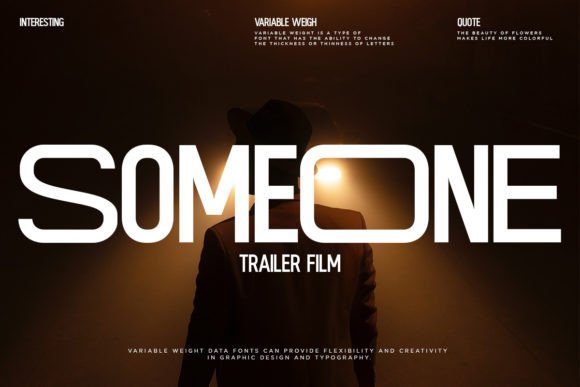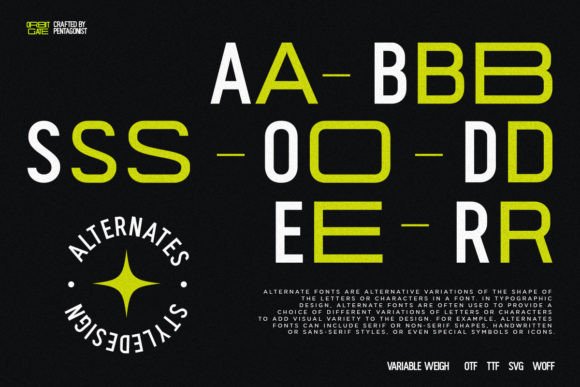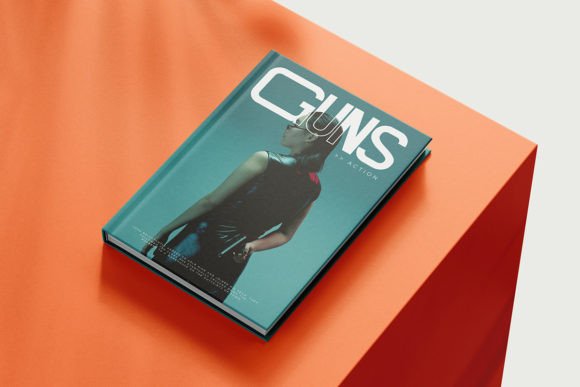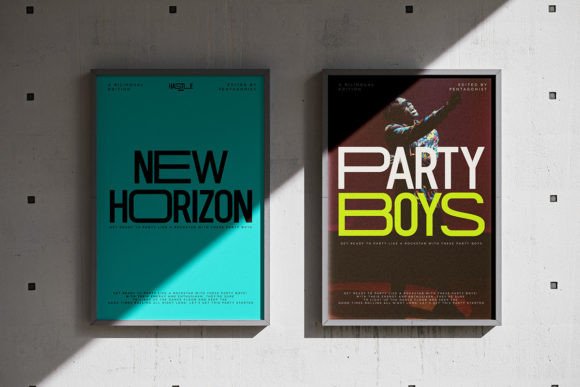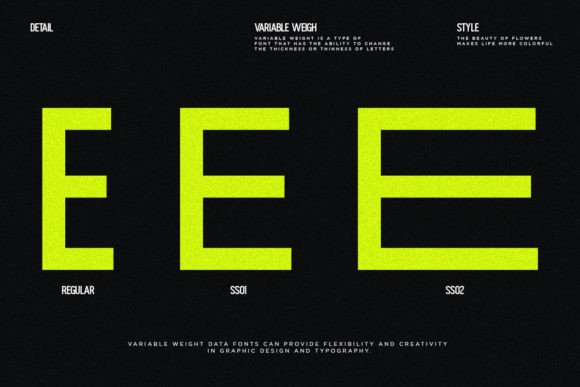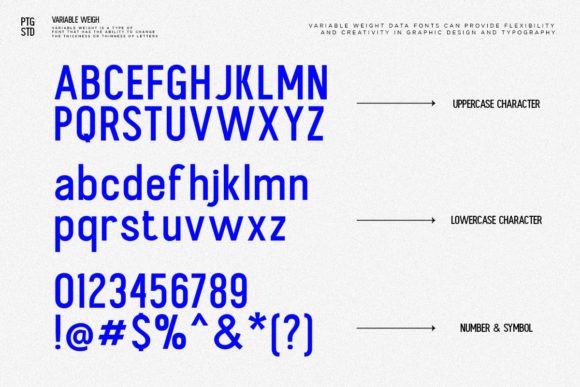
Introduction to Orbit Gate Font
As a designer, you’ve probably had that moment when you’re working on a creative project, and you just can’t seem to find the right font to bring your idea to life. The frustration is real, but what if I told you there’s a game-changing solution? Enter the Orbit Gate Font, a modern display sans serif typeface that’s about to revolutionize your design process.
Designed to be versatile and adaptable, the Orbit Gate Font is the perfect design resource for any branding purpose. With its variable style condensed and extended options, you can create a high-quality visual identity that’s sure to impress. And the best part? It’s PUA encoded, making it easy to access all the amazing glyphs and ligatures you need to take your design to the next level.
Whether you’re working on a free download project or a high-stakes client brief, the Orbit Gate Font is a valuable asset that’s sure to save you time and effort. With its transparent background and limitless customization options, you can trust that your design will shine with this exceptional font.
Key Features of Orbit Gate Font
- Orbit Gate Font is a unique, modern design that offers a range of style options for designers.
- Features a clear, legible font with a clean and minimalist aesthetic, ideal for digital and print use.
- Size: Multi-weight font with 8 different weights, from Light to Black, to cater to various design requirements.
Honest Review: Orbit Gate Font
I recently stumbled upon the Orbit Gate Font, and I must say, it’s been a game-changer for my creative projects. As a designer, I’m always on the lookout for high-quality fonts that can elevate my designs and make them stand out. The Orbit Gate Font does just that.
What works well is the font’s versatility. It’s perfect for titles, headings, and even body text. The Orbit Gate Font comes in various weights, which allows me to customize my designs according to my needs. The font’s clean design and transparent background make it easy to pair with any background image or color.
- Versatile font that’s suitable for titles, headings, and body text
⚠️ One limitation I’ve noticed is that the font might not be suitable for very small text sizes, as it can become blurry. However, this is a minor issue, and with a bit of adjustment, the font works beautifully.
Overall, I’m impressed with the Orbit Gate Font, and I would highly recommend it to fellow designers. Its high-quality design, versatility, and free download make it an excellent choice for any creative project. ✨
Tips for Getting the Most Out of Orbit Gate Font
Use the Orbit Gate Font in combination with a transparent background to create visually appealing designs. Experiment with different font sizes and colors to add depth and interest to your project.
The Orbit Gate Font is ideal for creative projects that require a high-quality, unique font. Use it for logos, brochures, posters, and other design materials that need a touch of sophistication.